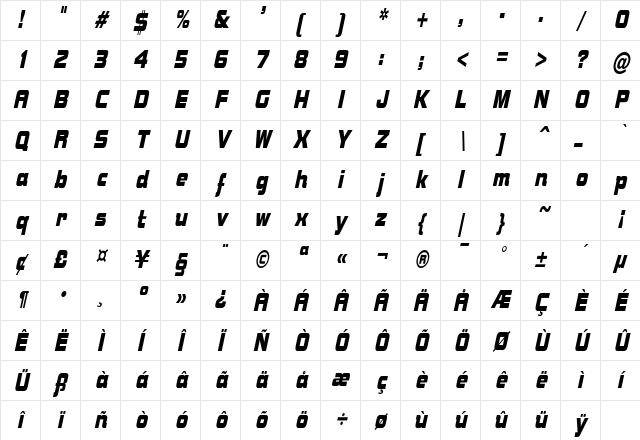
NutsCondensed Oblique
Style: Oblique
Design Context for NutsCondensed
NutsCondensed is a composed and adaptable typeface that performs quietly and consistently across a wide range of design contexts. The slanted form adds forward momentum and visual energy. Its narrow stance lets it pack a punch even in space-constrained designs.
A practical choice for tight layouts, multi-column editorial design, and space-efficient signage.
Pro Tip: Use NutsCondensed for emphasis, pull quotes, and subheadings where its slanted energy can add rhythm to the layout.